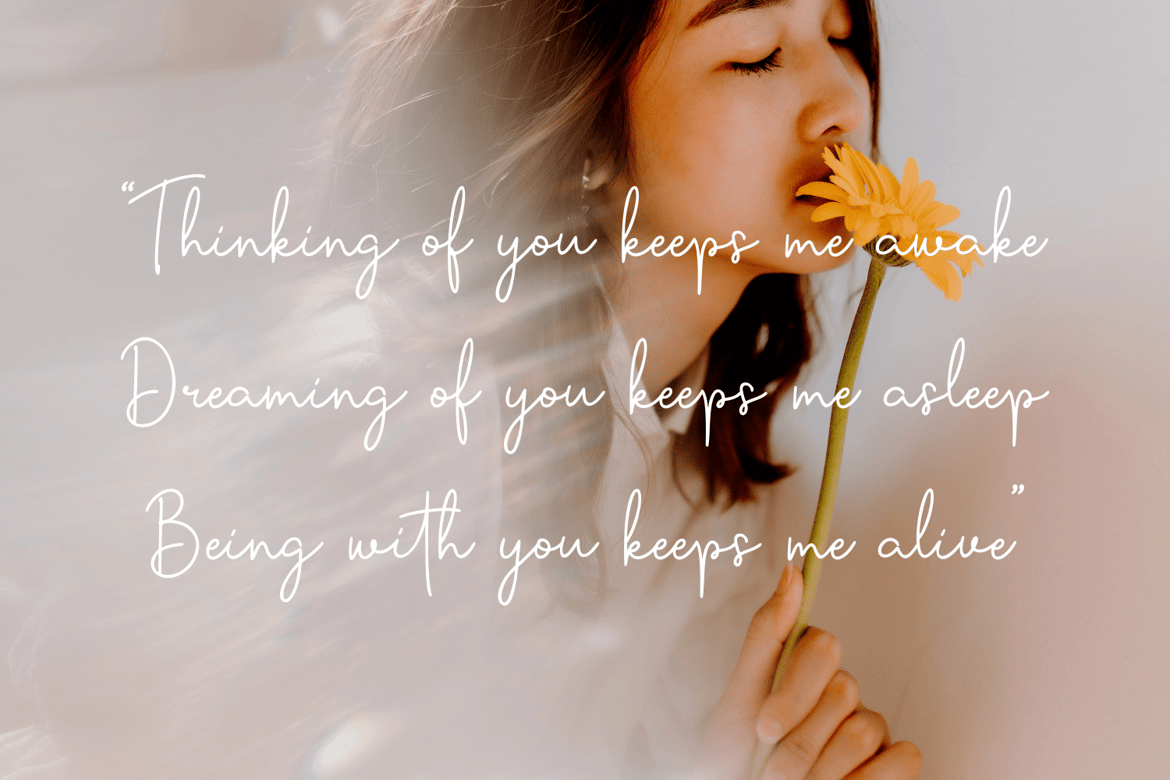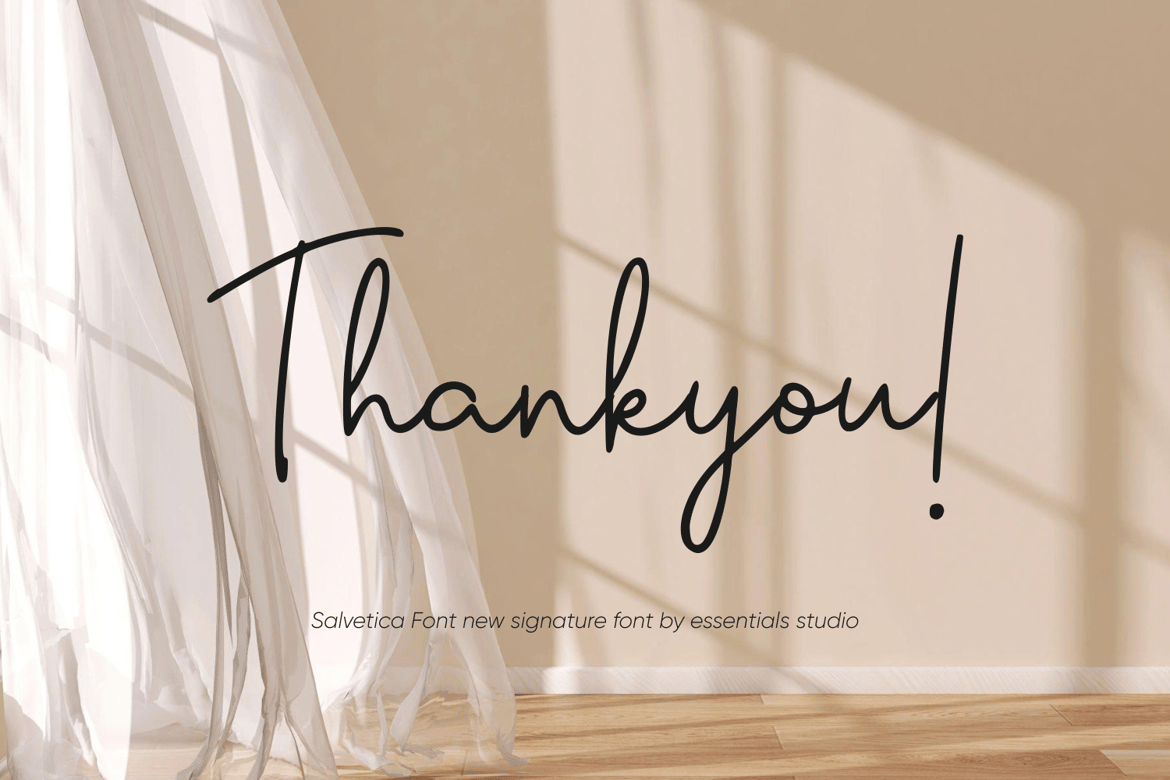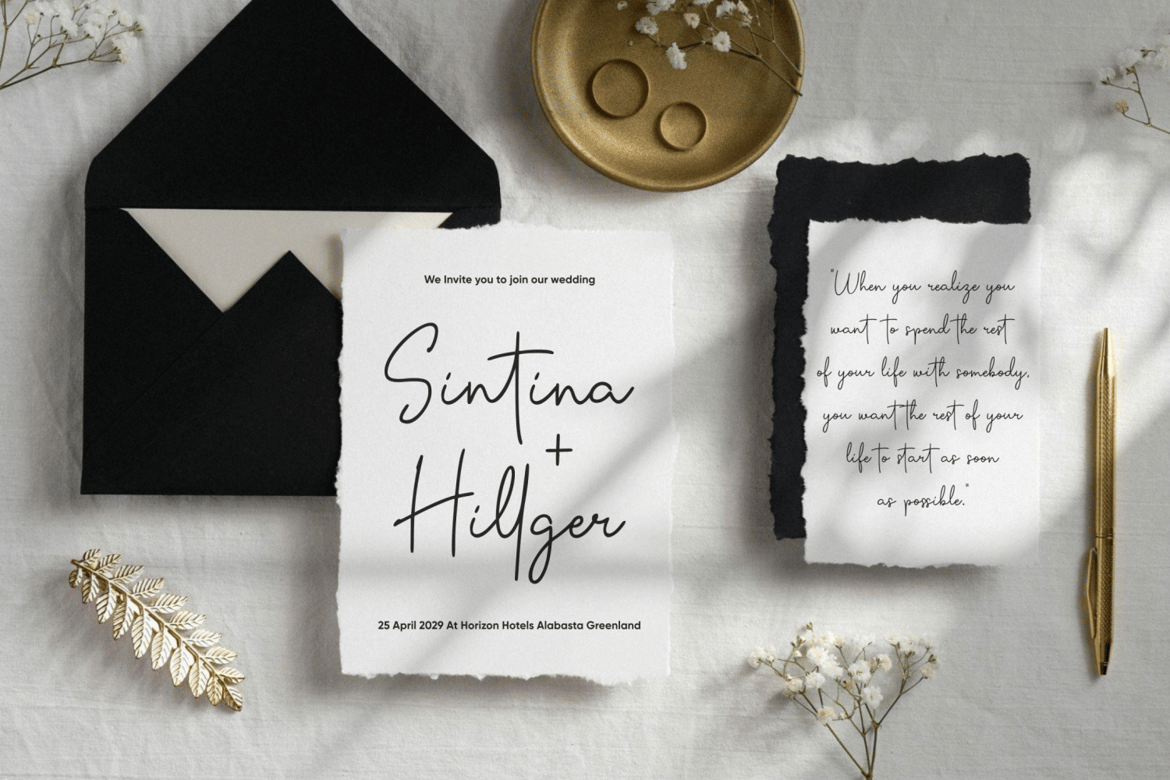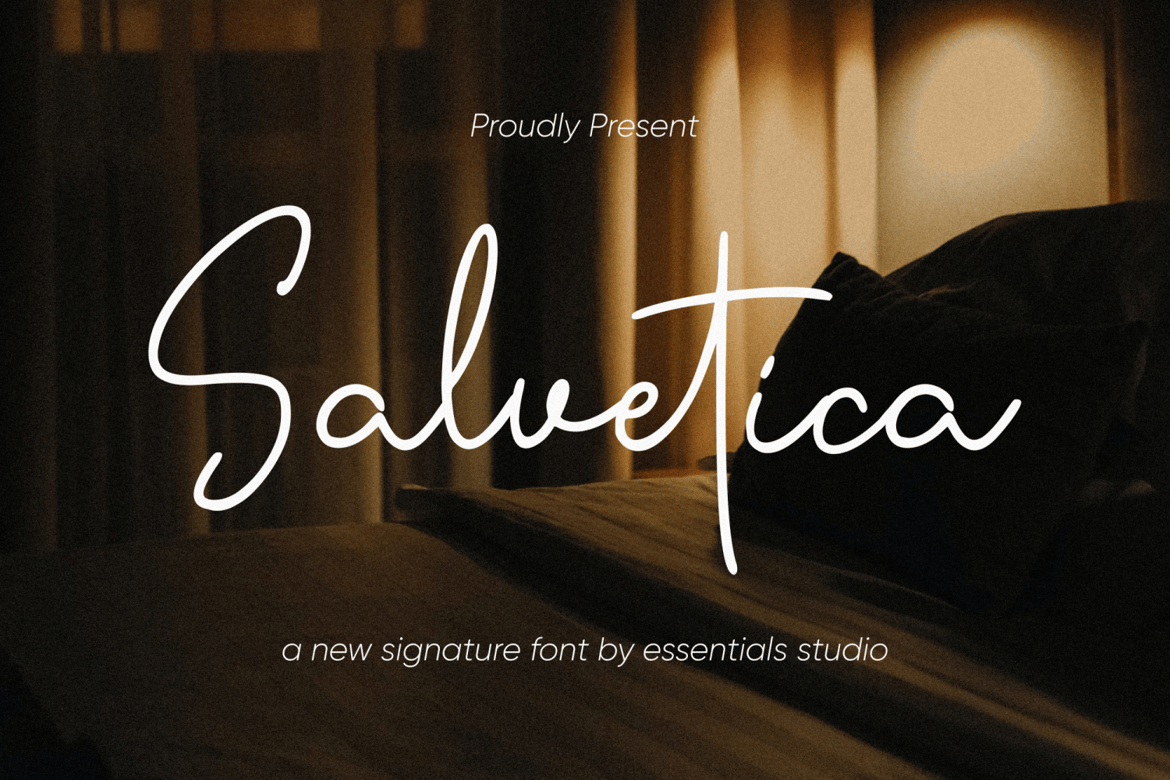
ES Savetica – Siganture Font
Introducing by Essentials Studio
Proudly Present, Savetica
Savetica Is a A Monoline Signature Font Saveticae is perfect for product packaging, branding project, megazine, social media, wedding, or just used to express words above the background.